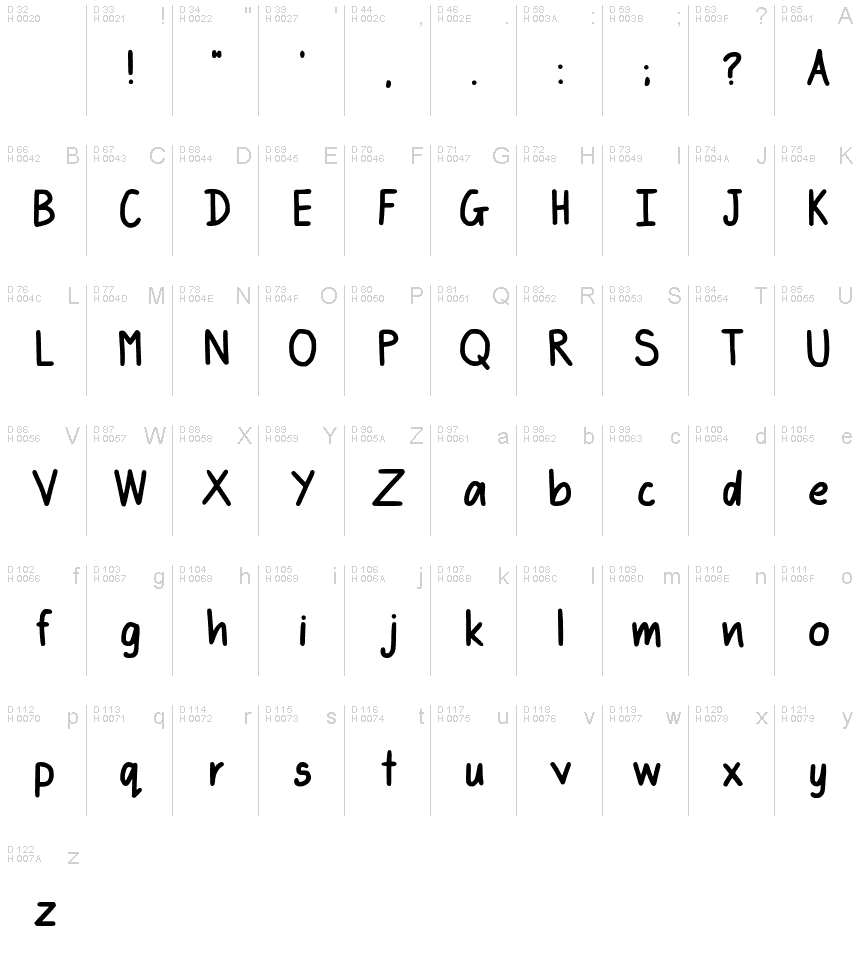
Sabsfont Regular
Sabsfont is a semi-light handwritten font, designed by Sabs A for a variety of creative projects. With its fluid and organic curves, it adds a stylish, personal touch to any project. Perfect for modern, playful designs like logo design, stationery design, social media posts and greeting cards. Sabsfont is sure to make your project stand out!